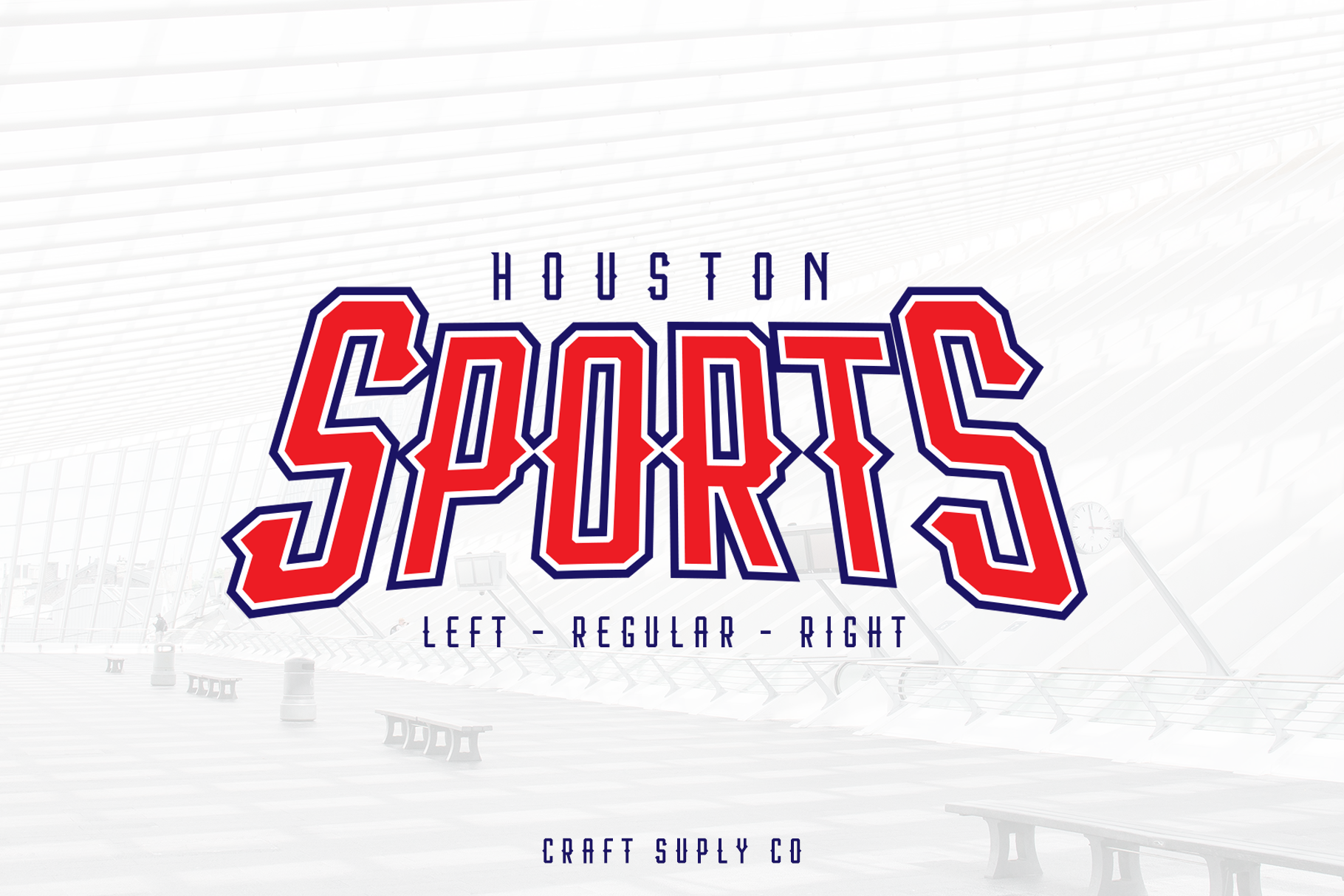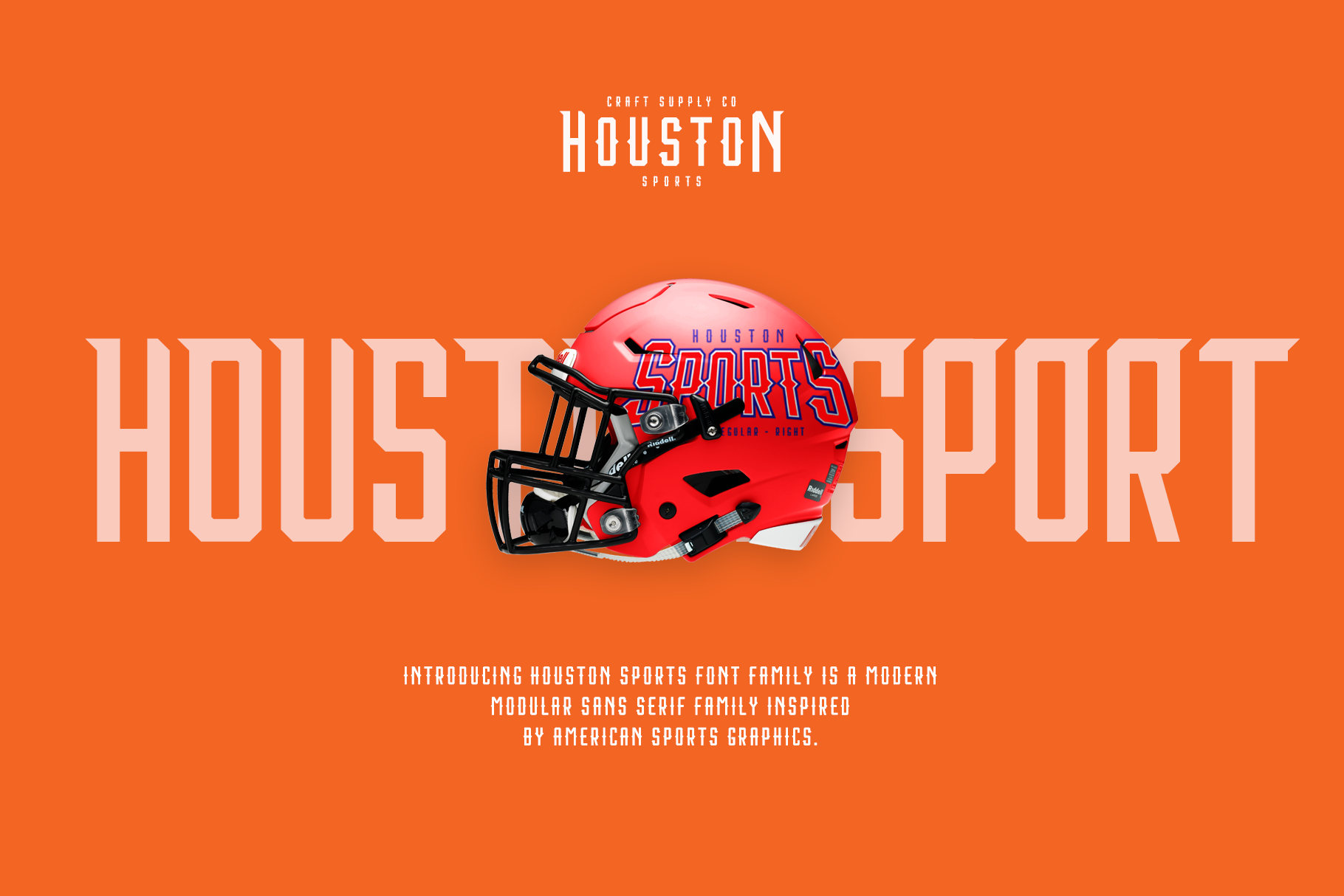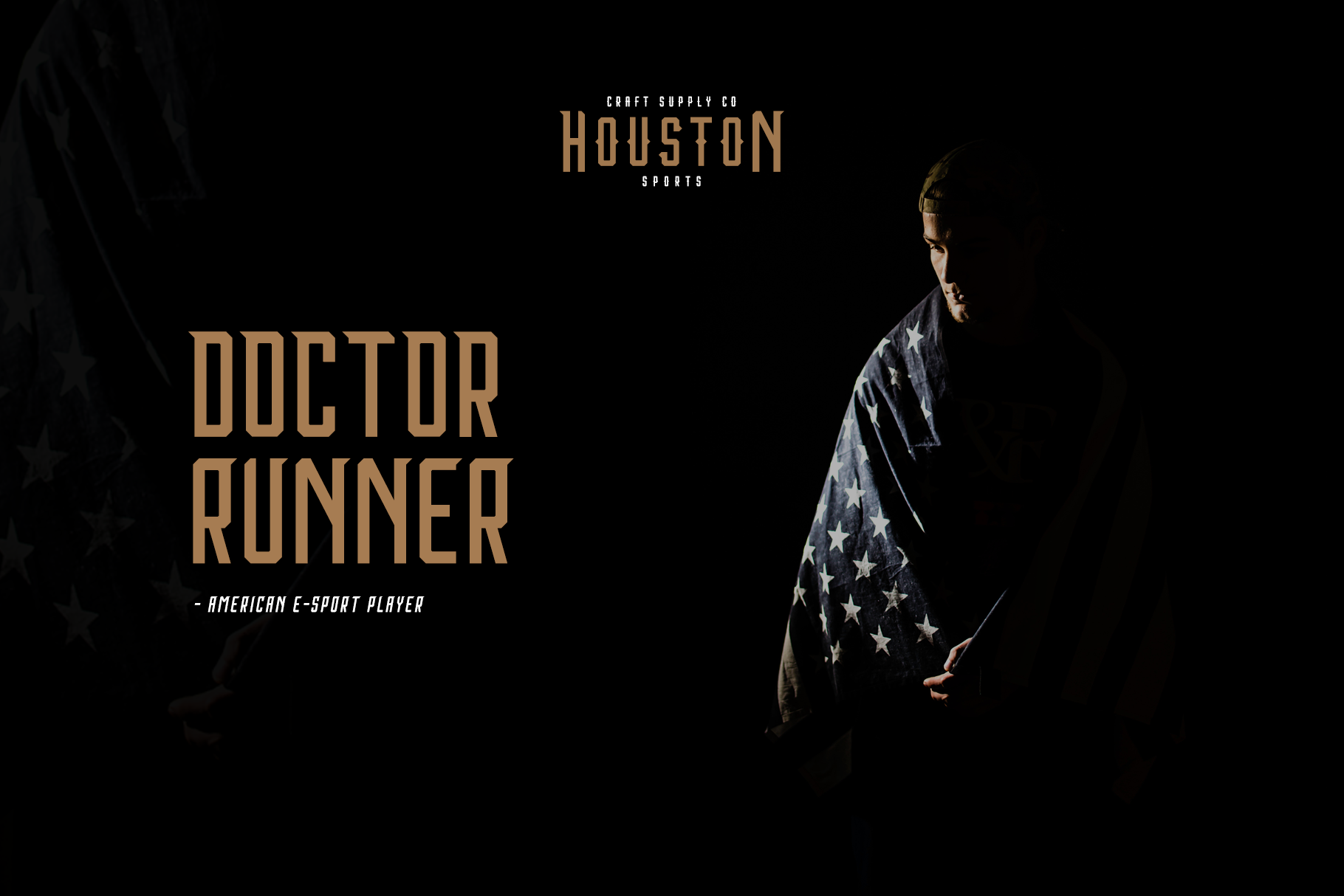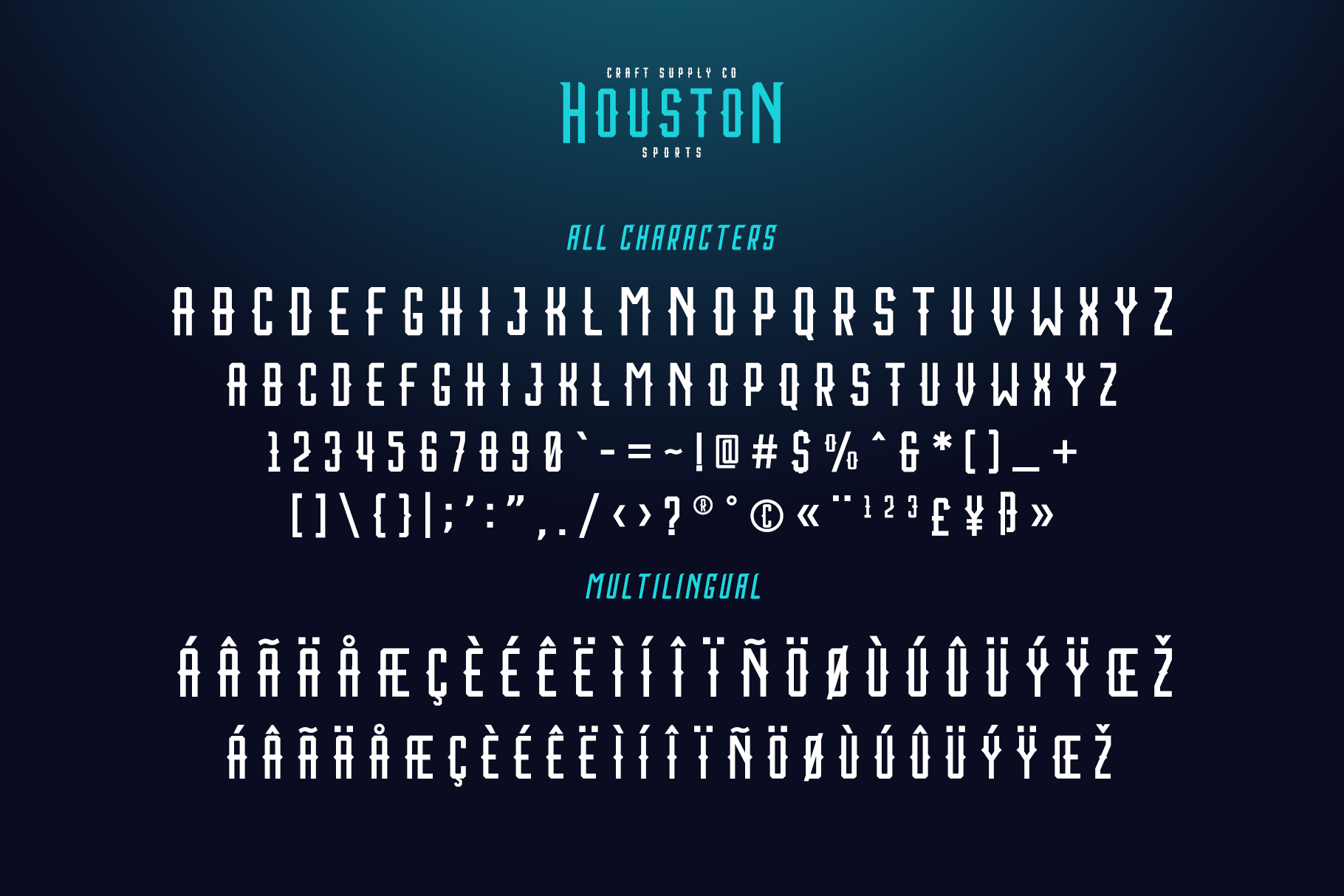
Houston Sports Font
About the Houston Sports Font
Introducing the Houston Sports Font, a beautifully crafted typeface designed to elevate your creative projects. Houston Sports Font Family is a modern modular display font family inspired by American sports graphics. Houston Sports Font Family is based on the compact solid font, by combining a variety of styles. This font is quintessentially sports/athletic themed, and can give you a fresh twist on an already established heritage of design.
Its bold, energetic forms make Houston Sports Font ideal for headlines, logos, and short, impactful text in sports-related branding, posters, and packaging. The strong geometry works well for conveying power and dynamism. However, its condensed nature and high contrast make it unsuitable for body copy or extended reading. Avoid using it for UI elements or applications requiring high legibility in smaller sizes.
Pairing Houston Sports Font with a clean sans-serif like Open Sans for body text creates a strong visual hierarchy. For a more vintage feel, consider a classic serif like Garamond or a slightly more playful serif like Playfair Display. These pairings balance the font’s powerful personality, providing readability without diminishing its impact.
The overall personality is bold, modern, and assertive—perfect for brands aiming to project strength, confidence, and a youthful energy.
Houston Sports Font Usage Examples
Houston Sports Font Example